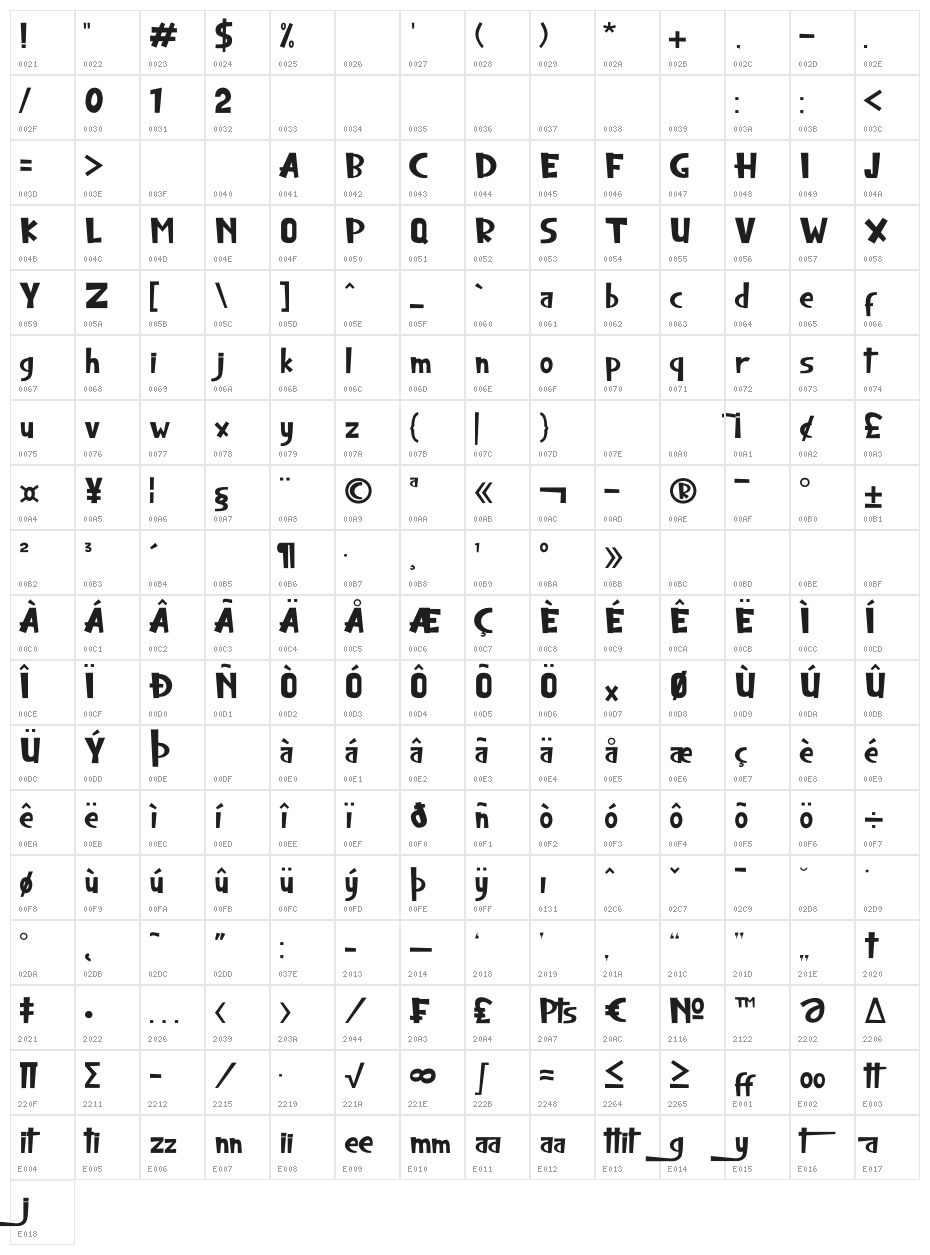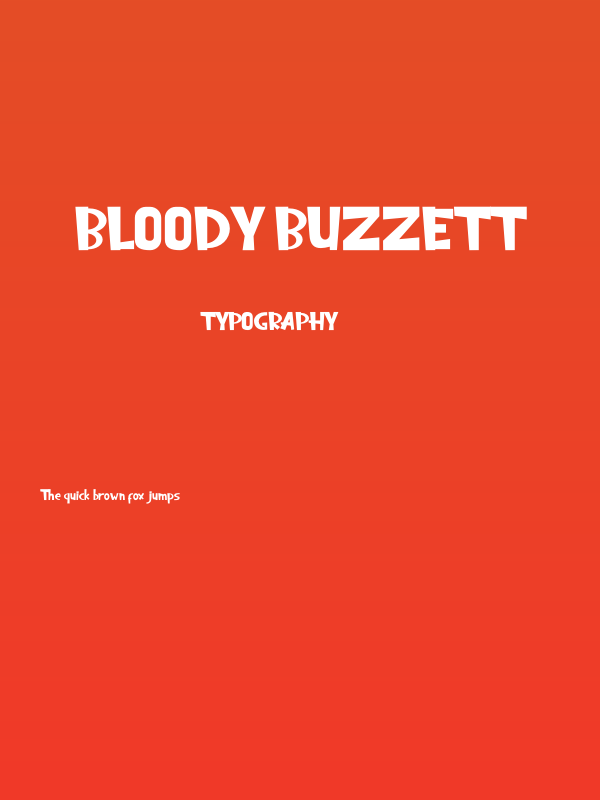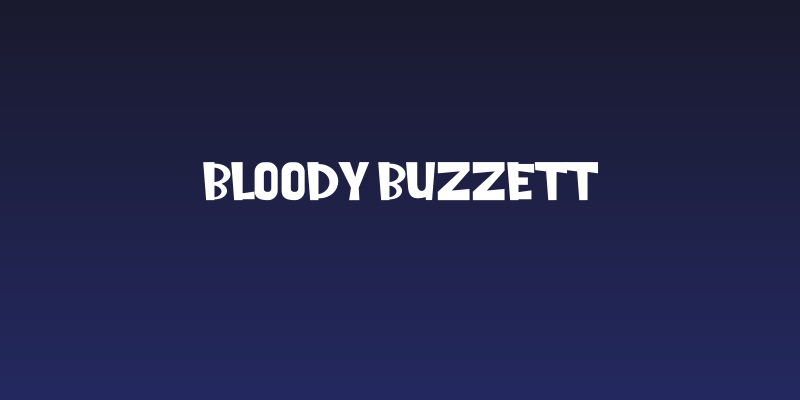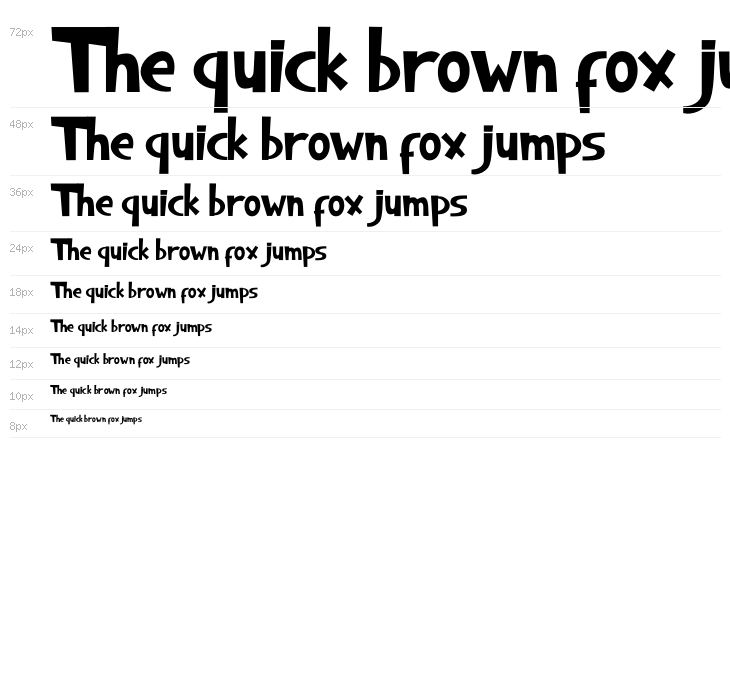
Bloody Buzzett Font
Bloody Buzzett Description
This font features a bold and playful design with a slightly irregular and whimsical appearance. The characters have a hand-drawn feel, with varying stroke thicknesses that add to its quirky charm. The uppercase letters are particularly distinctive, with some characters featuring unique angles and curves that give them a dynamic look. The lowercase letters maintain the playful style, with rounded edges and a consistent flow. Numbers and special characters follow the same design principles, ensuring a cohesive look across all glyphs. This font is ideal for projects that require a fun and engaging aesthetic.
Overall StylePlayful, Whimsical, Hand-drawn
Proposed ProjectsIdeal for children's books, playful branding, party invitations, and creative posters.